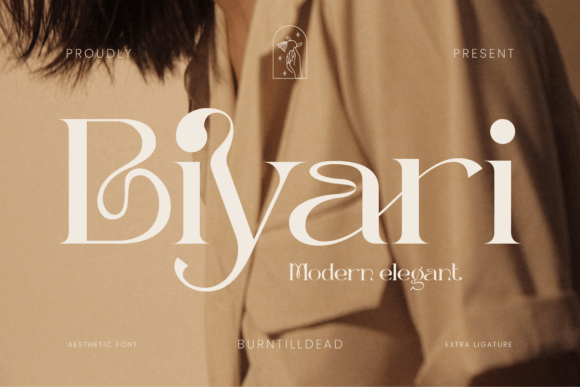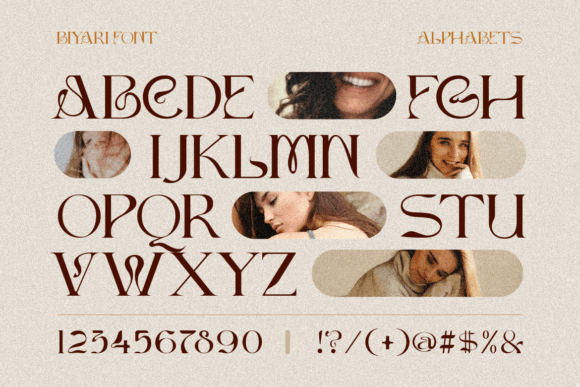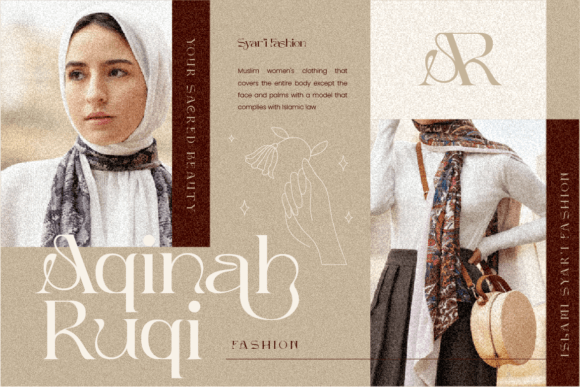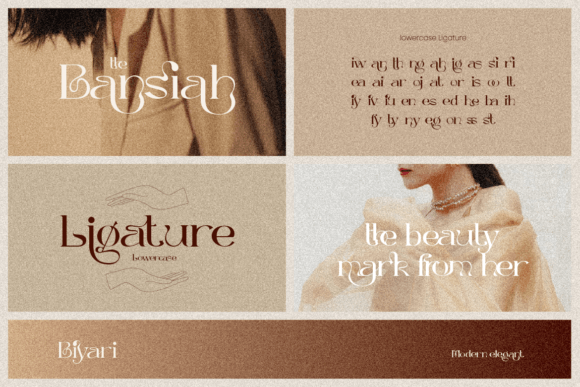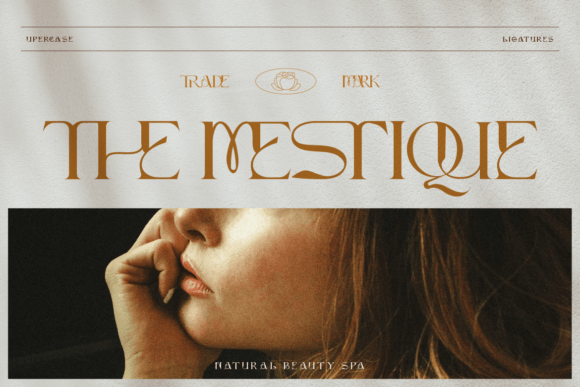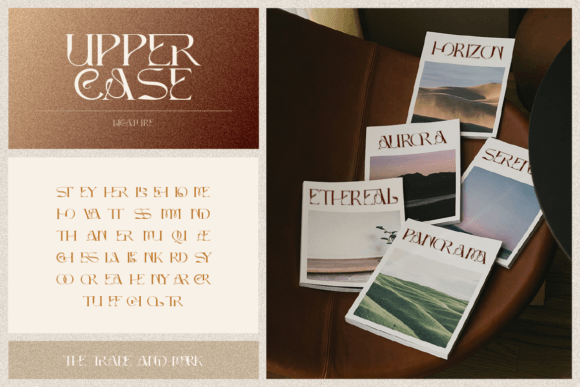
Introducing Biyari: The Epitome of Modern Elegance
A Personal Review of Biyari
Biyari has quickly become one of my go-to fonts for projects that require a touch of elegance and luxury. Here’s what I love about it:
- ✨ Timeless elegance: Biyari seamlessly blends modern design elements with classic sophistication, making it perfect for high-end branding, fashion magazines, and wedding invitations.
- ✅ Clean lines and balanced proportions: The font features clean lines, balanced proportions, and a refined aesthetic that exudes luxury and class.
- 💡 Versatility: Biyari is suitable for a wide range of projects, from digital designs to print materials.
While Biyari is an exceptional font, there are a few minor quirks to be aware of:
- 🤔 Limited availability of certain characters: Some special characters might not be readily available, but this can be easily resolved by using the font’s OpenType features or glyphs.
- ⚠️ Not ideal for body text: Biyari is best suited for headlines, titles, and short paragraphs. For longer texts, consider pairing it with a more readable font.
The Backstory of Biyari
Biyari was designed with the intention of creating a font that embodies modern elegance and sophistication. The designer aimed to craft a font that would be both versatile and luxurious, making it perfect for high-end branding, fashion magazines, and wedding invitations. Inspired by classic typography and modern design elements, Biyari is a true masterpiece.
| What is Biyari best suited for? | Biyari is perfect for high-end branding, fashion magazines, wedding invitations, and any project that requires a touch of elegance and modernity. |
| Can I use Biyari for body text? | While Biyari is an exceptional font, it’s best suited for headlines, titles, and short paragraphs. For longer texts, consider pairing it with a more readable font. |
| Is Biyari available in different weights or styles? | Yes, Biyari comes in various weights and styles, making it versatile for different design applications. |